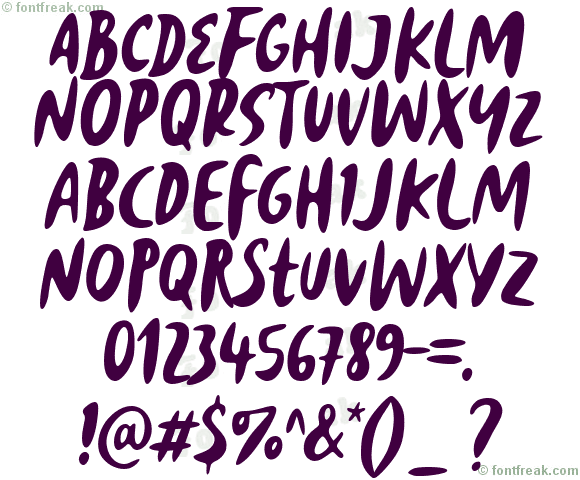
Reborn Revolt
Reborn Revolt is a striking display font designed by Situjuh Nazara, released in 2018 under a freeware license. This font captures attention with its bold, expressive character, making it a standout choice in the world of typography. As a display font, Reborn Revolt is characterized by its unique letterforms that evoke a sense of rebellion and individuality. The strokes exhibit a varied weight, creating a dynamic contrast that enhances its visual impact. The spacing between letters is well-balanced, allowing for optimal readability while maintaining a bold presence.
This font is particularly well-suited for a variety of creative applications. Its distinctive style makes it ideal for movie posters, where it can convey excitement and drama. Additionally, Reborn Revolt shines in promotional materials for music events or festivals, capturing the rebellious spirit of youth culture. For small business owners, using this font on restaurant menus or signage can create a memorable brand identity that resonates with customers. Content creators will find it perfect for social media graphics, allowing their posts to stand out in an increasingly crowded digital landscape.
Targeting graphic designers, small business owners, and content creators, Reborn Revolt offers a versatile tool for anyone looking to make a bold statement in their projects. The font's ability to convey personality and emotion sets it apart from more conventional typefaces. With its unique flair and rebellious charm, the Reborn Revolt font free download is a valuable addition to any designer's toolkit. Whether you're crafting an eye-catching headline or designing a captivating logo, this font provides the perfect balance of creativity and readability, ensuring your message is both impactful and unforgettable.